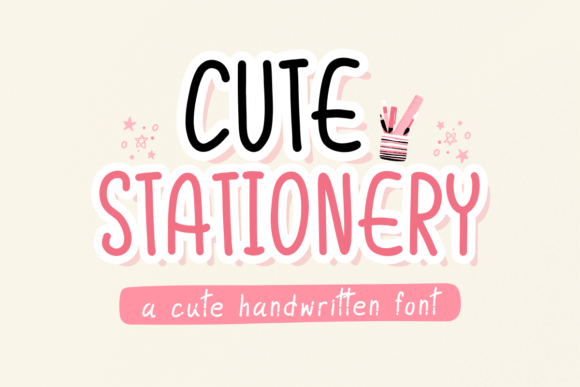
**Introducing Cute Stationery Font - Your Gateway to Designing Magic**
In a world where creativity knows no bounds, let Cute Stationery Font be your muse, your guiding light, as you embark on a journey of artistic expression. This enchanting script font, crafted by the visionary minds at Khim08Studio, holds the power to transform your designs into captivating masterpieces that exude charm and personality.
**The Allure of Simplicity and Charm**
In a world saturated with complex designs, Cute Stationery Font embraces the beauty of simplicity. Its unpretentious, handwritten style evokes a sense of nostalgia, reminiscent of childhood memories and heartfelt notes. With each stroke of this font, you can create designs that resonate with your audience, leaving an indelible mark on their hearts.
**Unleash Your Versatility**
Like a chameleon adapting to its environment, Cute Stationery Font effortlessly transitions between various applications. Its versatility shines through in crafts for kids and teachers, greeting cards, and countless other projects. Whether you're creating marketing materials, designing logos, or simply expressing yourself through art, Cute Stationery Font is your trusted companion.
**Make Your Text the Star of the Show**
With Cute Stationery Font, your text takes center stage, captivating your audience with its undeniable charm. Whether it's a heartfelt message on a greeting card, a call to action on a marketing flyer, or simply a beautiful quote on social media, Cute Stationery Font ensures that your words leave a lasting impression.
**Embark on a Creative Journey Like No Other**
With Cute Stationery Font at your disposal, you possess the power to transform your designs into breathtaking works of art. Its captivating style will ignite your creativity, propelling you to new heights of artistic expression. Get ready to create designs that speak to the heart, designs that leave a lasting legacy in the world of design.
**A Font That Inspires, A Font That Captivates**
Cute Stationery Font is more than just a collection of characters; it's an invitation to unlock your creative potential. With every design you create, you'll discover new facets of your artistry, pushing the boundaries of what's possible. Whether you're a seasoned designer or just starting your creative journey, Cute Stationery Font will inspire you to achieve greatness.
**Don't Miss Out on the Cutest Addition to Your Font Collection**